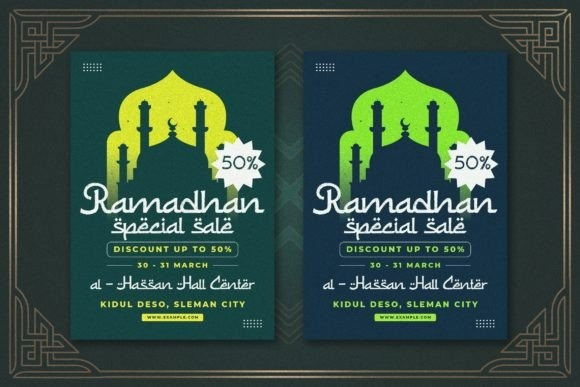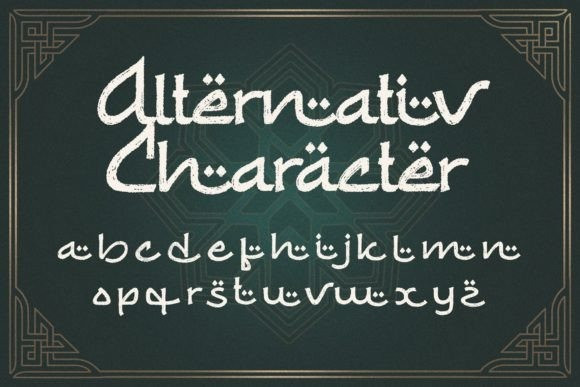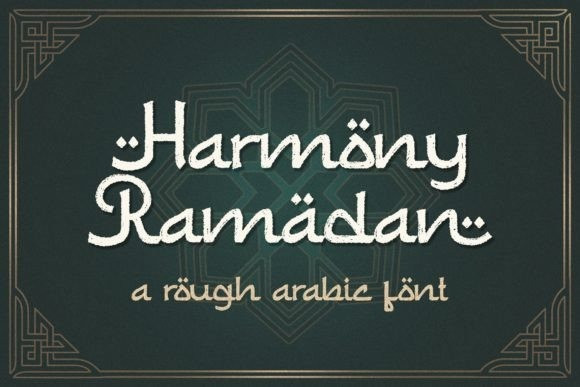
Harmony Ramadan Font
Harmony Ramadan Font is a font crafted with finesse and elegance, specifically designed to convey the spiritual essence and warmth of Islamic themes. Each letter is meticulously carved, presenting a captivating visual harmony, as if flowing with the gentle prayer recitations of the sacred month of Ramadan.
With “Harmony Ramadan,” every dot, line, and curve carries profound meaning, radiating an aura of tranquility and simplicity inherent in its design. As these letters come together, they blend into a beautiful balance, creating stunning design works that celebrate the magnificence of the Ramadan month and special days of the Islamic calendar.